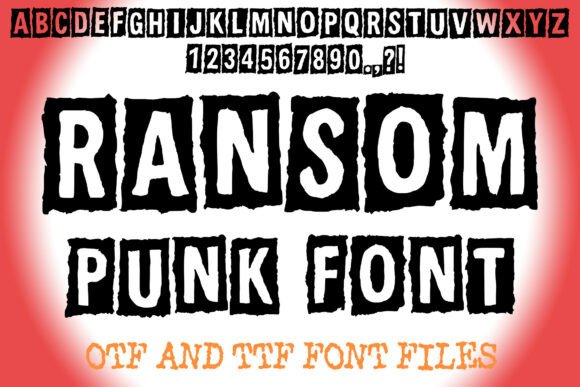
Ransom Punk Font: Unleash Your Creativity with a Bold, Rebellious Typeface
In the world of typography, few fonts manage to capture the essence of rebellion and nonconformity as effectively as the Ransom Punk Font. This fun, DIY cartoon style font is designed to empower your creativity, allowing you to craft your own words and color them according to your vision. With its bold, cut-and-paste collage style reminiscent of classic punk zines and ransom notes, Ransom Punk Font is the perfect addition to any design project that demands a gritty, anarchic flair.
Key Features of Ransom Punk Font
- Bold and Rebellious Design: Each letter is enclosed in its own rough-edged block, giving your typography an aggressive, raw edge that commands attention.
- Handcrafted Look: The irregular, handcrafted appearance of Ransom Punk Font makes it ideal for projects that thrive on chaos and character.
- Comprehensive Character Set: Ransom Punk Font includes uppercase letters, numbers, punctuation, and special characters, providing everything you need to create striking designs.
Ideal Design Applications for Ransom Punk Font
Ransom Punk Font’s unique aesthetic makes it perfect for a variety of design projects, including:
- Band Posters: Add a punk rock edge to your music promotional materials with this eye-catching font.
- Protest Graphics: Convey a powerful message with a bold, nonconformist typeface that demands attention.
- Edgy Apparel Design: Create striking t-shirt designs, hoodies, and other apparel that showcases your rebellious style.
- Underground Event Flyers: Promote your underground events, concerts, or art exhibitions with a font that embodies the spirit of the avant-garde.
- DIY and Craft Projects: Add a personal touch to your DIY projects, such as handmade cards, posters, and artwork.
Exploring the Style and Usage of Ransom Punk Font
Ransom Punk Font’s design is characterized by its cut-and-paste collage style, which gives it a distinctive, handcrafted look. Each letter is carefully crafted to resemble a ransom note or a punk zine, complete with rough edges and an irregular appearance. This font is not just a typeface; it’s a statement piece that can elevate your designs and give them a bold, rebellious edge.
When using Ransom Punk Font, feel free to experiment with different colors, textures, and design elements to amplify its impact. The font’s versatility and compatibility with various design software make it easy to incorporate into your workflow.
Tips and Tricks for Getting the Most Out of Ransom Punk Font
- Mix and Match: Combine Ransom Punk Font with other fonts to create visually striking contrast and add depth to your designs.
- Experiment with Colors: Don’t be afraid to try out bold, bright colors to amplify the font’s rebellious vibe.
- Play with Texture: Add texture and grunge effects to your typography to give it a more distressed, punk-inspired look.
- Keep it Bold: Use Ransom Punk Font to make a statement and keep your message clear and concise.
Ransom Punk Font is more than just a typeface; it’s a creative tool that empowers you to express your individuality and add a bold, rebellious edge to your designs. With its unique cut-and-paste collage style, comprehensive character set, and versatile format, this font is perfect for designers, artists, and DIY enthusiasts looking to make a statement. So, unleash your creativity and add a dose of punk energy to your next project with Ransom Punk Font.
- Is Ransom Punk Font suitable for body text?
- Ransom Punk Font is primarily designed for display purposes and may not be suitable for body text due to its bold and irregular appearance.